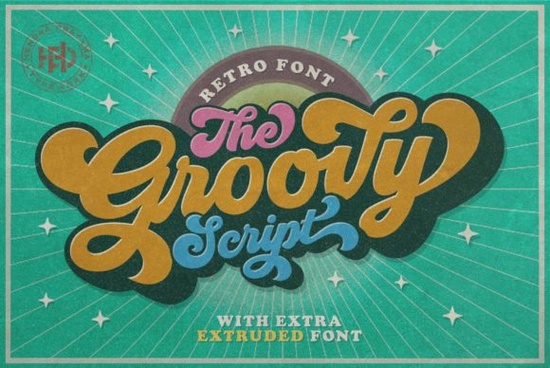
If you're working on a retro-inspired design whether it's for a t-shirt, poster, packaging, or social media graphic you know how much the right font can shape the mood. That’s where Groovy Font comes in. Inspired by the bold, free-spirited ads of the late 1960s and early 70s, this script typeface brings a nostalgic yet stylish vibe that feels both authentic and fresh.
Groovy isn’t just another decorative font it’s crafted with flowing curves, subtle swashes, and that unmistakable vintage rhythm that defined an era of peace signs, psychedelic posters, and vinyl record sleeves. It works especially well when you want to evoke warmth, creativity, or a laid-back attitude without leaning into clichés.
What kinds of projects work best with Groovy Font?
This font shines in contexts where personality matters more than formality. Think:
- Vintage-style branding for cafes, boutiques, or music venues
- Hand-lettered quotes or wall art with a 70s twist
- Album covers, zines, or event flyers
- Print-on-demand products like mugs, tote bags, or phone cases featuring retro slogans
Because it’s a script font with organic movement, Groovy pairs beautifully with clean sans-serifs or minimal serif fonts for contrast. Avoid pairing it with other highly decorative scripts like Honeymoon Handwriting unless you’re going for intentional maximalism.
How does Groovy compare to other retro-inspired script fonts?
Not all vintage scripts are created equal. Some lean more toward modern calligraphy (like Stay Wonderful), while others echo sports nostalgia (such as Baseball Classic). Groovy stands out because it captures the specific visual language of late-60s advertising think groovy lettering on concert posters or album art from that time.
It’s less rigid than mid-century modern fonts and more playful than formal scripts. If you’ve ever admired the typography in old Rolling Stone ads or Woodstock-era graphics, Groovy channels that energy without requiring you to dig through archives.
For those who love heartfelt, hand-drawn vibes but want something slightly more structured, Better Together offers a softer alternative but lacks the funky bounce that makes Groovy unique.
Tips for using Groovy Font effectively
Like any expressive typeface, Groovy needs room to breathe. Here’s how to get the most out of it:
- Avoid all caps. This font is designed as a script uppercase letters break its natural flow.
- Use generous spacing. Tight kerning can make the swashes collide. Most design software lets you adjust letter spacing manually.
- Limit body text. Groovy is best for headlines, logos, or short phrases. Don’t use it for paragraphs.
- Test at different sizes. The fine details may disappear if printed too small, especially on fabric or low-res prints.
And remember: authenticity matters. If your project references the 70s, pair Groovy with period-appropriate colors (mustard yellow, burnt orange, avocado green) and textures (grain overlays, halftone patterns) for a cohesive look.
Is Groovy Font right for your next project?
If you’re aiming for a design that feels joyful, expressive, and rooted in a specific cultural moment, yes. But if your brand leans minimalist, corporate, or ultra-modern, this probably isn’t the fit. The key is matching the font’s personality to your message.
For more inspiration, browse similar styles like Groovy alongside other script fonts in Creative Fabrica’s collection they often bundle complementary fonts, making it easy to experiment without extra cost.
Before you download, ask yourself:
- Does my audience connect with retro aesthetics?
- Am I using this for display text (not body copy)?
- Do I have the right color palette and imagery to support the vibe?
When those boxes are ticked, Groovy Font can add just the right amount of soulful flair without trying too hard.